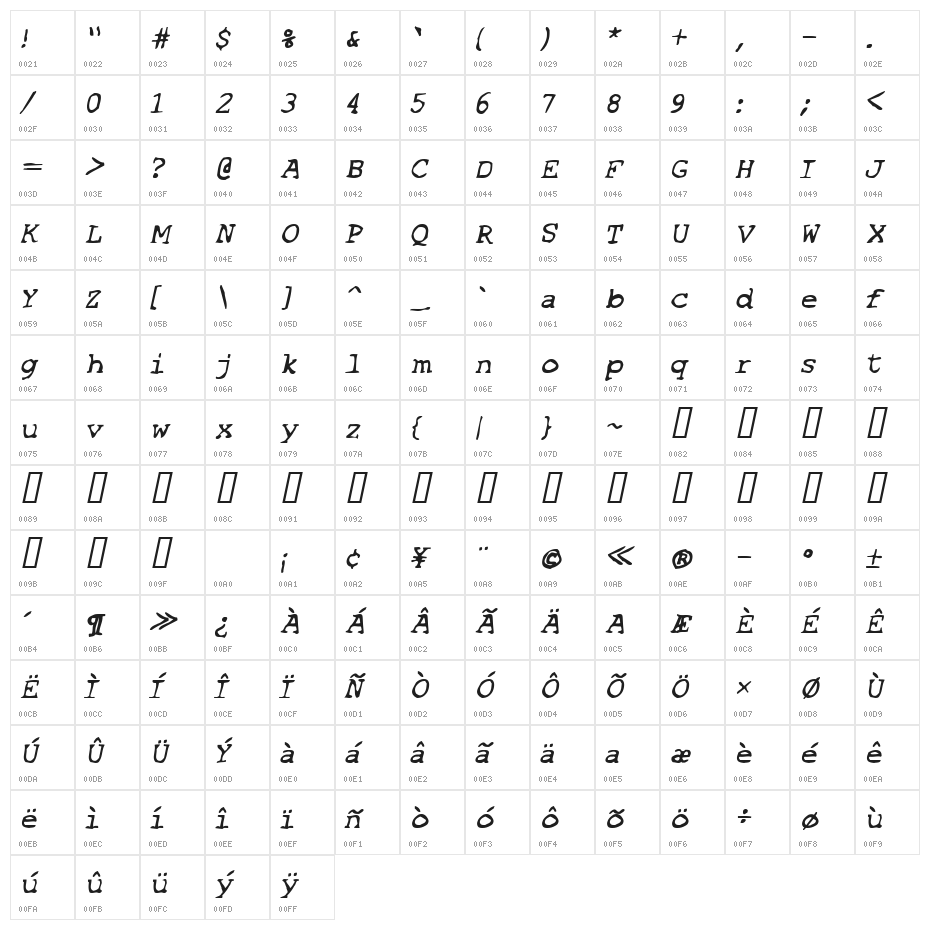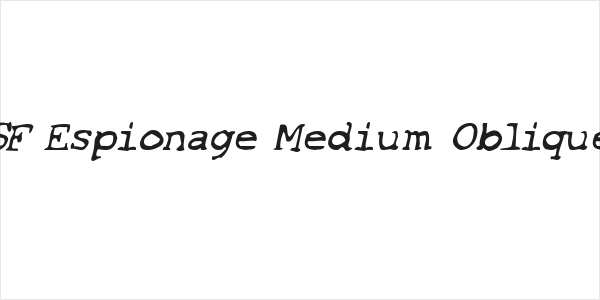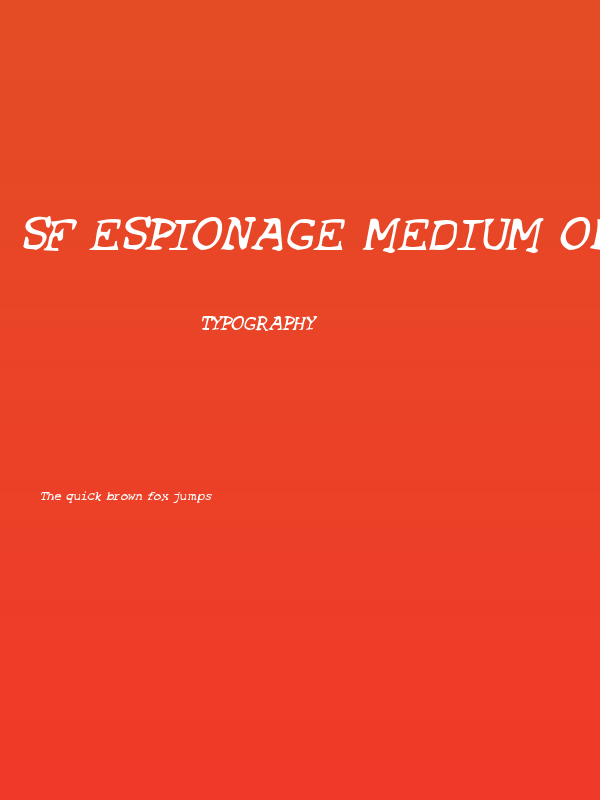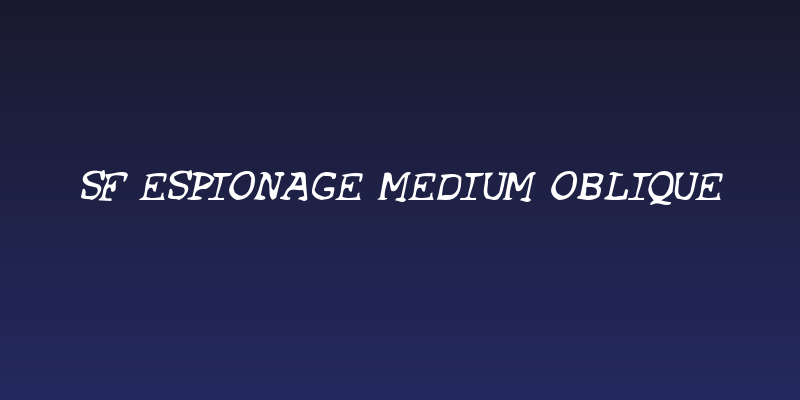
SF Espionage Medium Oblique Font
SF Espionage Medium Oblique Description
This font features a dynamic and slightly slanted style, giving it an oblique appearance. The characters have a hand-drawn quality with irregular edges, adding a sense of movement and energy. The uppercase letters are bold and assertive, while the lowercase letters maintain a consistent flow. Numbers and special characters are designed to match the overall aesthetic, ensuring a cohesive look. The font's unique style makes it suitable for projects that require a touch of intrigue or playfulness.
| Proposed Projects | Ideal for spy-themed designs, comic book titles, or creative branding projects. |